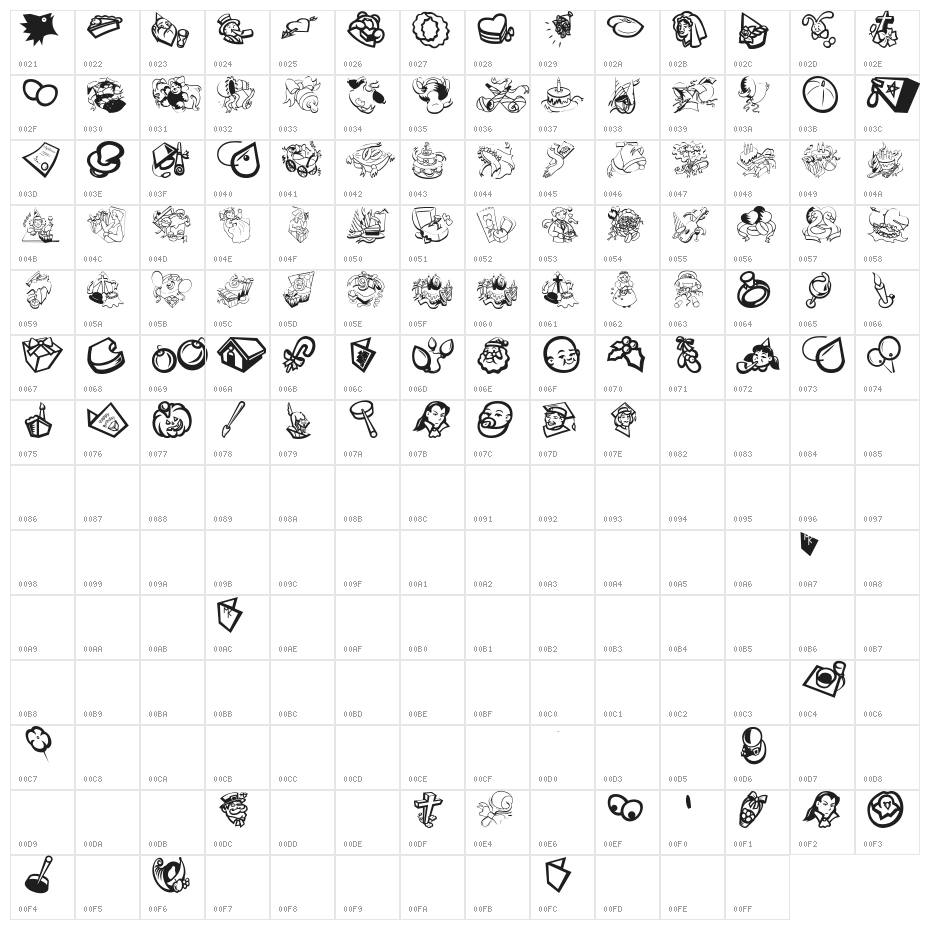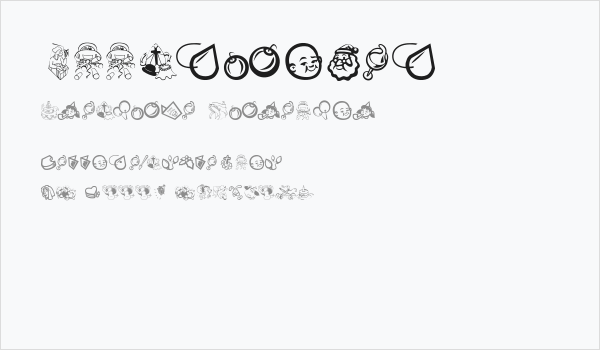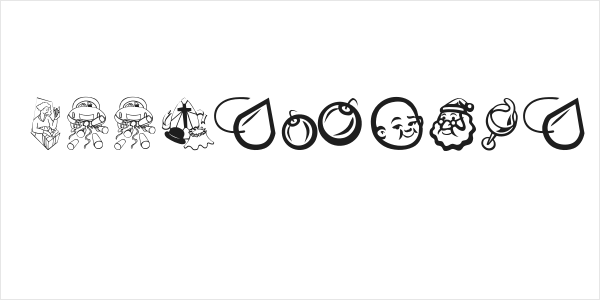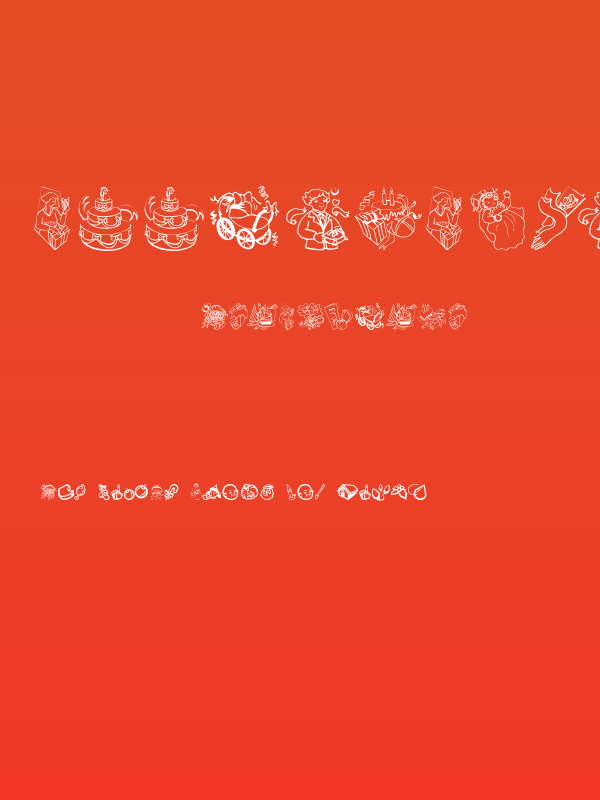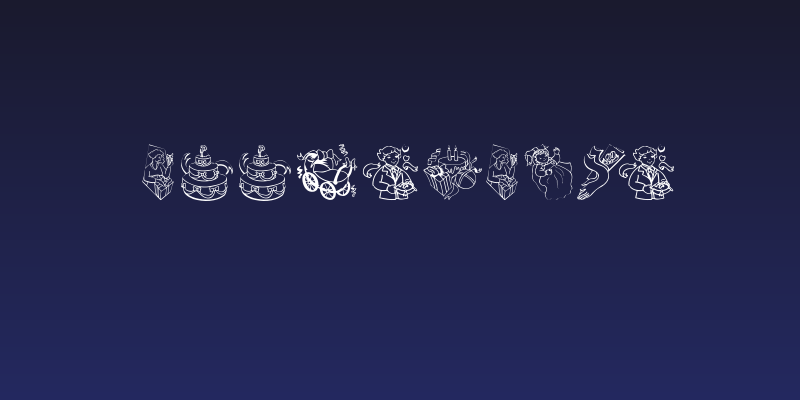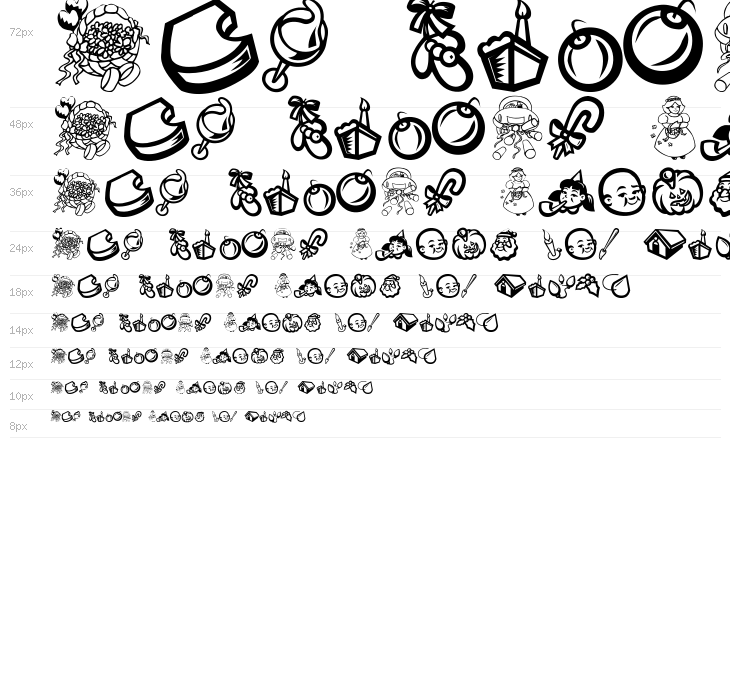
Occasiones Font
Occasiones Description
This is not a traditional font but rather a collection of decorative icons and illustrations themed around various occasions and celebrations. The images include festive elements such as cakes, balloons, gifts, and holiday symbols, each rendered in a playful and whimsical style. The illustrations are detailed and varied, capturing the essence of different festivities with a lighthearted and joyful approach. These icons are ideal for adding a touch of celebration to designs, whether for invitations, greeting cards, or event promotions.
Use CaseLogos, Decorative elements
Proposed ProjectsIdeal for greeting cards, party invitations, event flyers, and festive decorations.